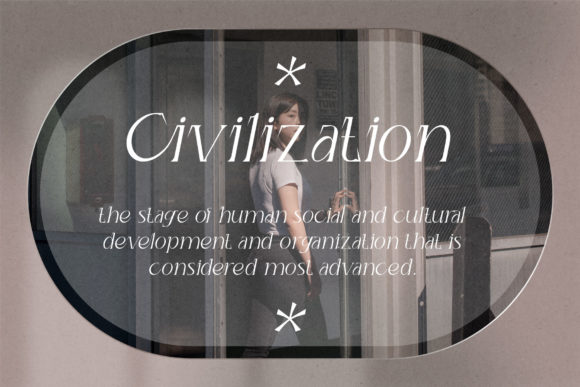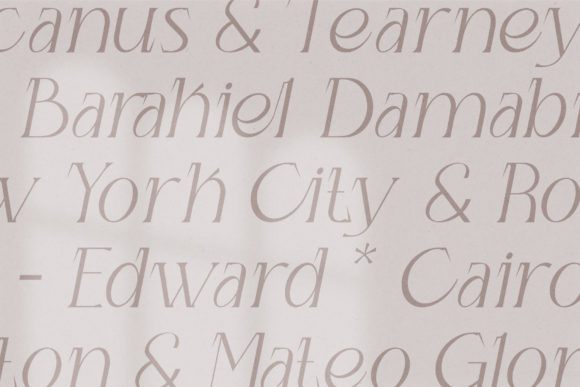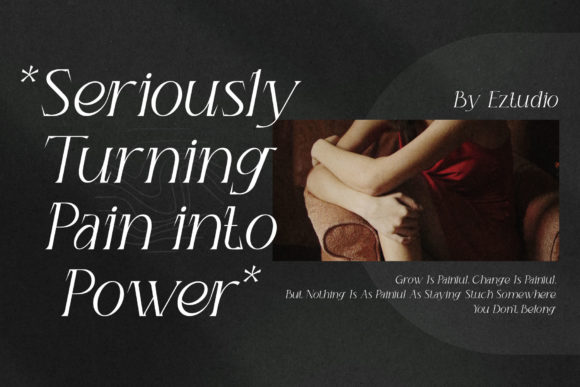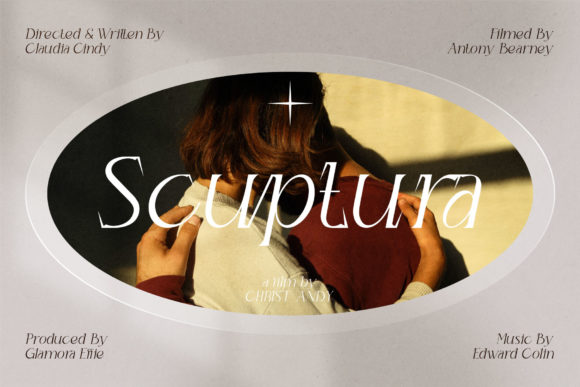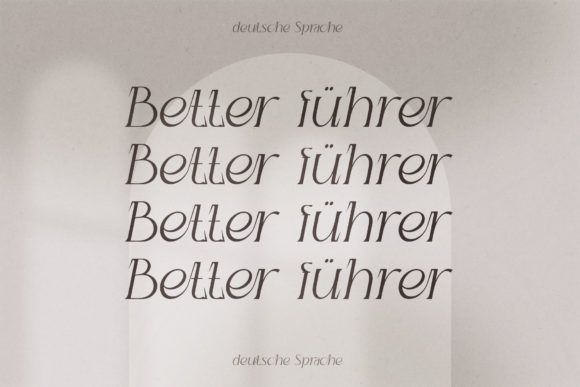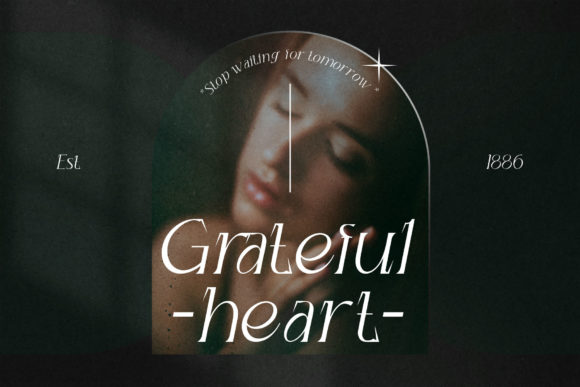
Introduction to Druther Font
Remember the moment you stumbled upon the perfect design resource for your creative project? Maybe it was a font that added just the right touch of elegance to your wedding invitations or a logo that perfectly captured the essence of your brand. For designers, finding that one special font can be a game-changer. Enter the Druther Font, a luxurious serif font that exudes high quality and sophistication.
With its transparent background and beautiful typography, the Druther Font is an excellent choice for designers seeking to add a personalized touch to their designs. Whether you’re working on a wedding invitation, a thank you card, or a logo, this font is sure to make your project stand out. And the best part? You can download it for free, making it an invaluable resource for designers on a budget.
- High-quality, modern design suitable for creative projects
- Transparent background, allowing for seamless integration with various backgrounds
- Includes a wide range of characters, including uppercase and lowercase letters, numbers, and punctuation
- Designed to be highly legible at various resolutions, including 72 dpi and 300 dpi
- Perfect for use in graphic design, digital art, and other creative projects where a unique, modern font is required
Honest Review: Druther Font
As a designer, I’m always on the lookout for high-quality design resources to elevate my creative projects. The Druther Font caught my attention, and I decided to give it a try.
What works well: ✨ I was impressed with the clean and modern aesthetic of the Druther Font. The transparent background makes it easy to use on a variety of design elements, from logos to graphics. The font also comes in multiple weights and styles, providing plenty of options for customization.
- High-quality design with a modern aesthetic
- Transparent background for versatility
- Multiple weights and styles for customization
What could improve: ⚠️ While the Druther Font is a great addition to any design resource library, it’s not without its limitations. The font is a bit on the lighter side, which may make it harder to read in certain contexts. Additionally, the font may not be suitable for all types of creative projects, particularly those that require a bold or dramatic look.
Overall, the Druther Font is a solid choice for designers who want a clean and modern font for their creative projects. With a bit of caution and consideration, it can be a valuable addition to any design library.
Introduction to Druther Font
Druther Font is a high-quality design resource that offers a transparent background, making it ideal for creative projects. With its unique style and versatility, this font is perfect for designers looking for a free download to elevate their designs.
Tips for Getting the Most Out of Druther Font
For best results, use Druther Font in combination with other design elements, such as images and graphics. Experiment with different font sizes, colors, and styles to create a unique look. You can also use Druther Font for various design projects, such as brochures, business cards, and social media graphics.
Common Use Cases for Druther Font
Druther Font is commonly used for creative projects, such as: branding and logos, typography and graphics, and digital marketing materials. Its high-quality design and transparent background make it ideal for a variety of design applications.
Yes, the Druther Font has a transparent background, making it easy to use in designs with complex backgrounds or overlays. This feature is particularly useful for designers who want to create visually striking and cohesive designs.